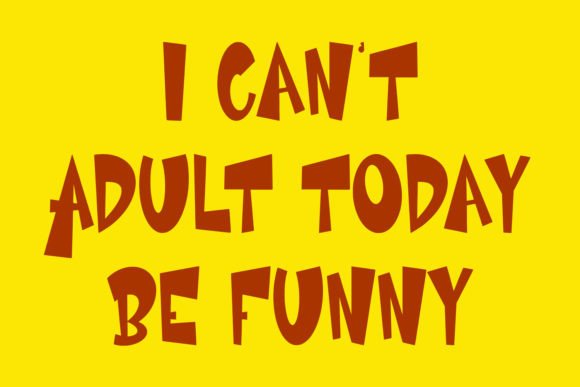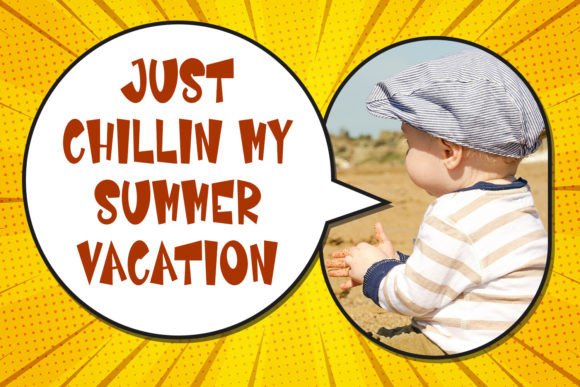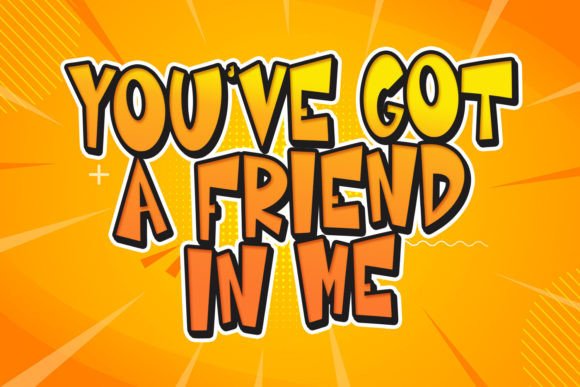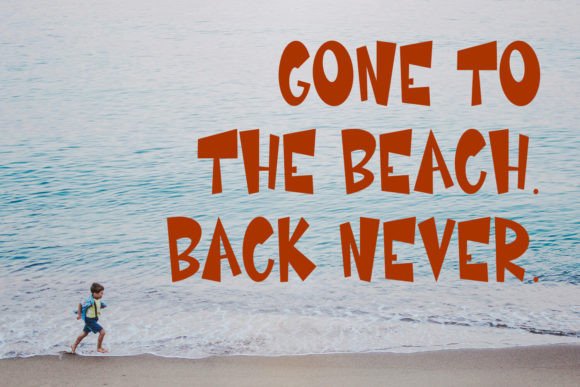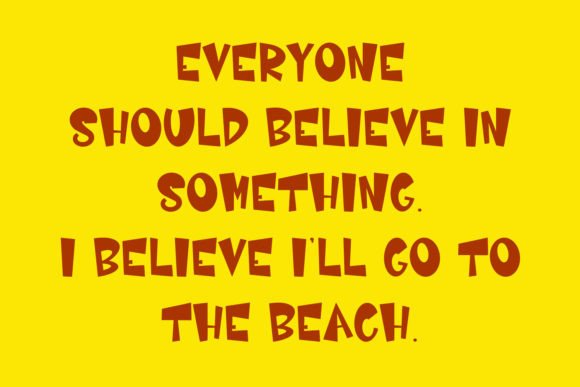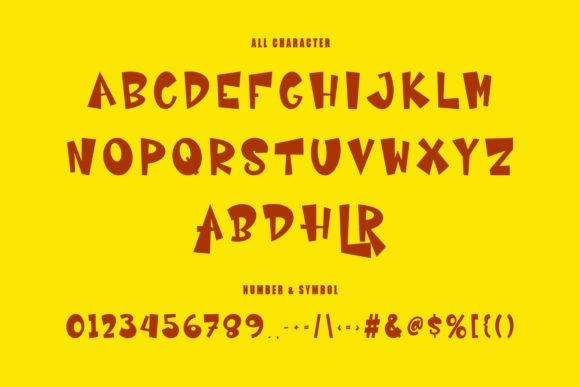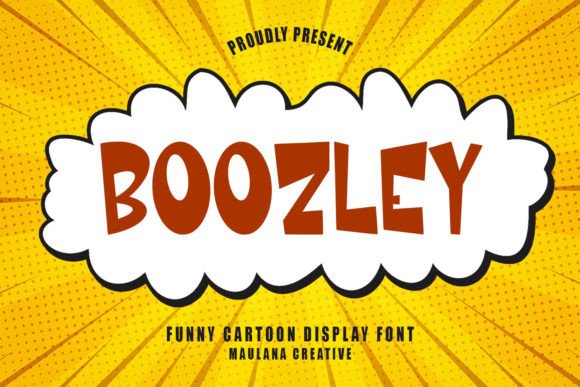
Introducing Boozley Cartoon Display Font: Adding a Touch of Whimsy to Your Designs
Are you tired of using the same old fonts in your designs? Do you want to add a touch of personality and whimsy to your projects? Look no further than Boozley Cartoon Display Font! This playful and charming font is perfect for designers and crafters who want to bring a smile to their audience’s faces.
What is Boozley Cartoon Display Font?
Boozley Cartoon Display Font is a unique and eye-catching font that is bursting with personality. Its cheerful curves and bold lines make it perfect for adding a touch of fun to any design. Whether you’re working on a comic, children’s book, or creative project, Boozley is the perfect font to bring your ideas to life.
Key Features of Boozley Cartoon Display Font
- Playful and Whimsical: Boozley is a playful and whimsical font that is sure to add a touch of personality to your designs.
- Cheerful Curves: The font features cheerful curves and bold lines that make it perfect for comics, children’s books, and creative projects.
- Easy to Read: Despite its playful nature, Boozley is easy to read and understand, making it perfect for body text and headings.
- Highly Versatile: Boozley can be used in a variety of designs, from digital projects to print materials.
Uses for Boozley Cartoon Display Font
Boozley Cartoon Display Font is perfect for a variety of design projects, including:
- Comics: Add a touch of personality to your comic book designs with Boozley’s playful and whimsical font.
- Children’s Books: Boozley is perfect for children’s books, with its cheerful curves and bold lines that are sure to delight young readers.
- Creative Projects: Whether you’re working on a DIY project or a creative endeavor, Boozley is the perfect font to add a touch of charm and character.
- Digital Projects: Boozley can be used in a variety of digital projects, from social media graphics to website headers.
Tips for Using Boozley Cartoon Display Font
Here are a few tips for using Boozley Cartoon Display Font in your designs:
- Use it as a Display Font: Boozley is perfect for use as a display font, where its playful and whimsical nature can really shine.
- Pair it with a Serif Font: For body text, pair Boozley with a serif font to create a nice contrast and add visual interest.
- Experiment with Colors: Boozley looks great in a variety of colors, so don’t be afraid to experiment and find the perfect hue for your design.
Boozley Cartoon Display Font is a unique and eye-catching font that is perfect for designers and crafters who want to add a touch of personality and whimsy to their projects. With its cheerful curves and bold lines, Boozley is sure to bring a smile to your audience’s faces. Whether you’re working on a comic, children’s book, or creative project, Boozley is the perfect font to bring your ideas to life.